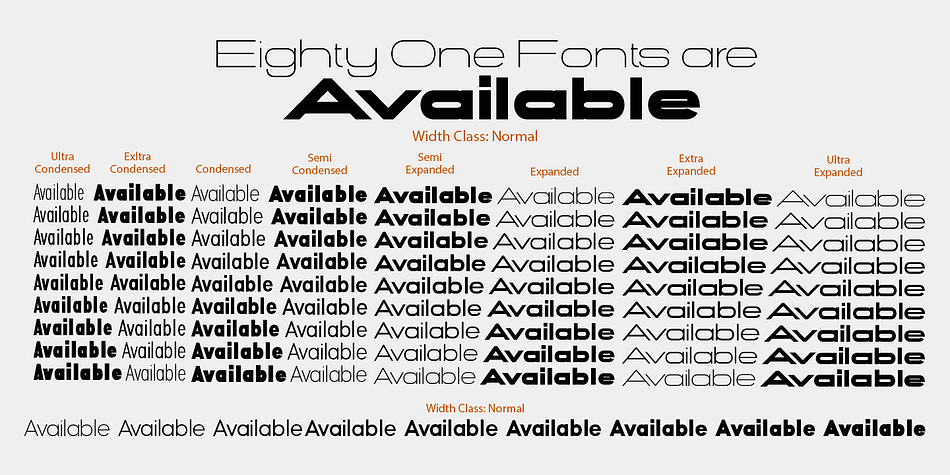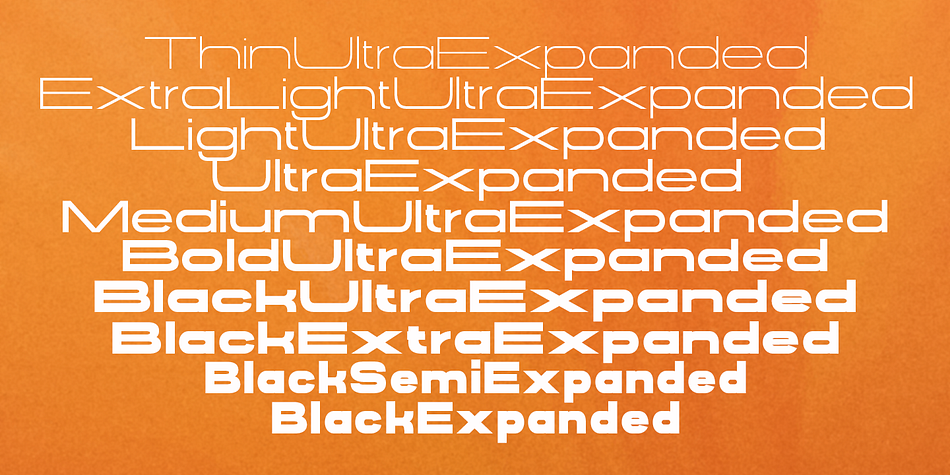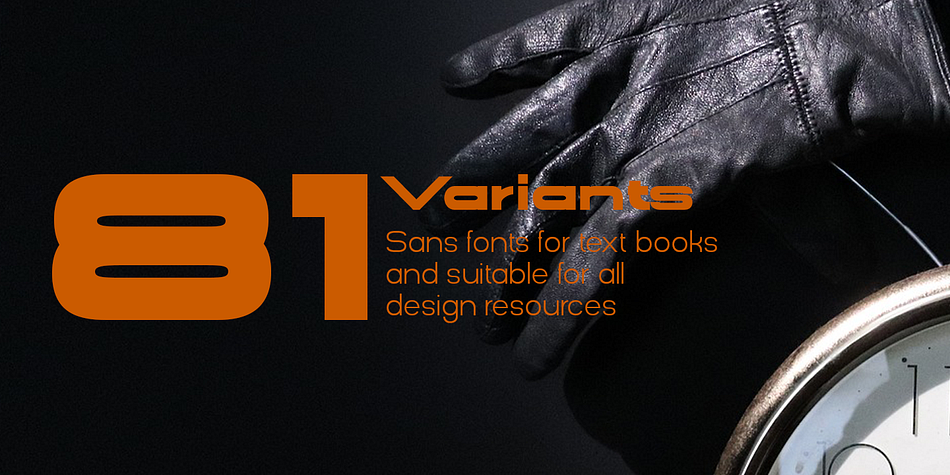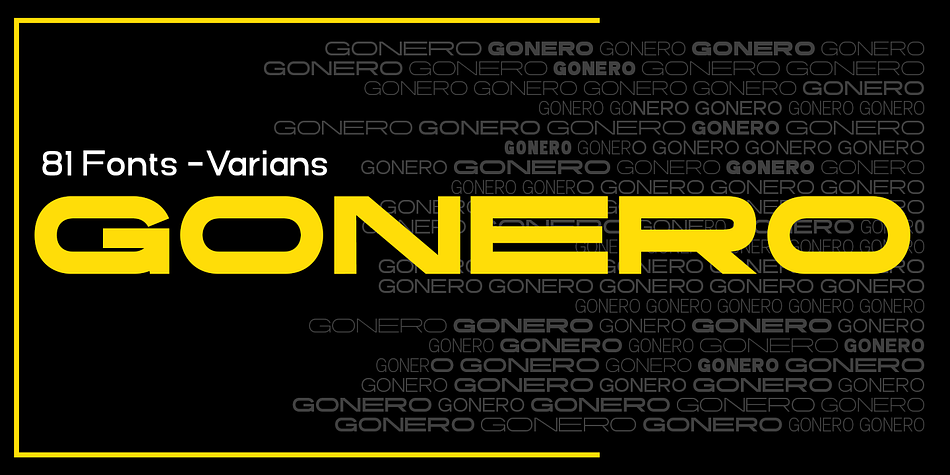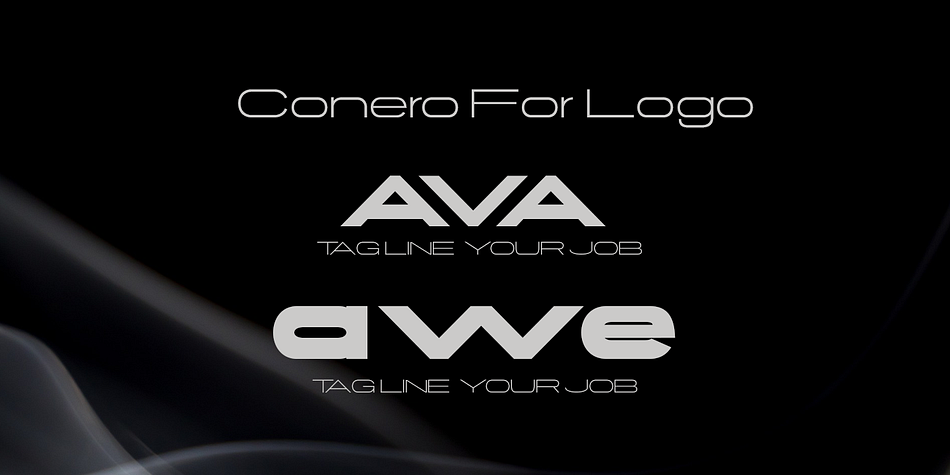
Designed by Roiyani Teungku, Gonero is a sans serif font family. This typeface has eighty-one styles and was published by Groens.
Gonero is a sans font belonging to 81 font families, created in a very bold style. Gonero is a type font, comes in 81 upright weights.
Gonero works well in all brands, logos, magazines, movies. The different weights give you a wide host of applications, while the outlined fonts give a real modern feel to any project.
Multilingual support for multiple languages including: French, German, Spanish, Portuguese, Italian, Dutch, Finnish, Swedish and many more.